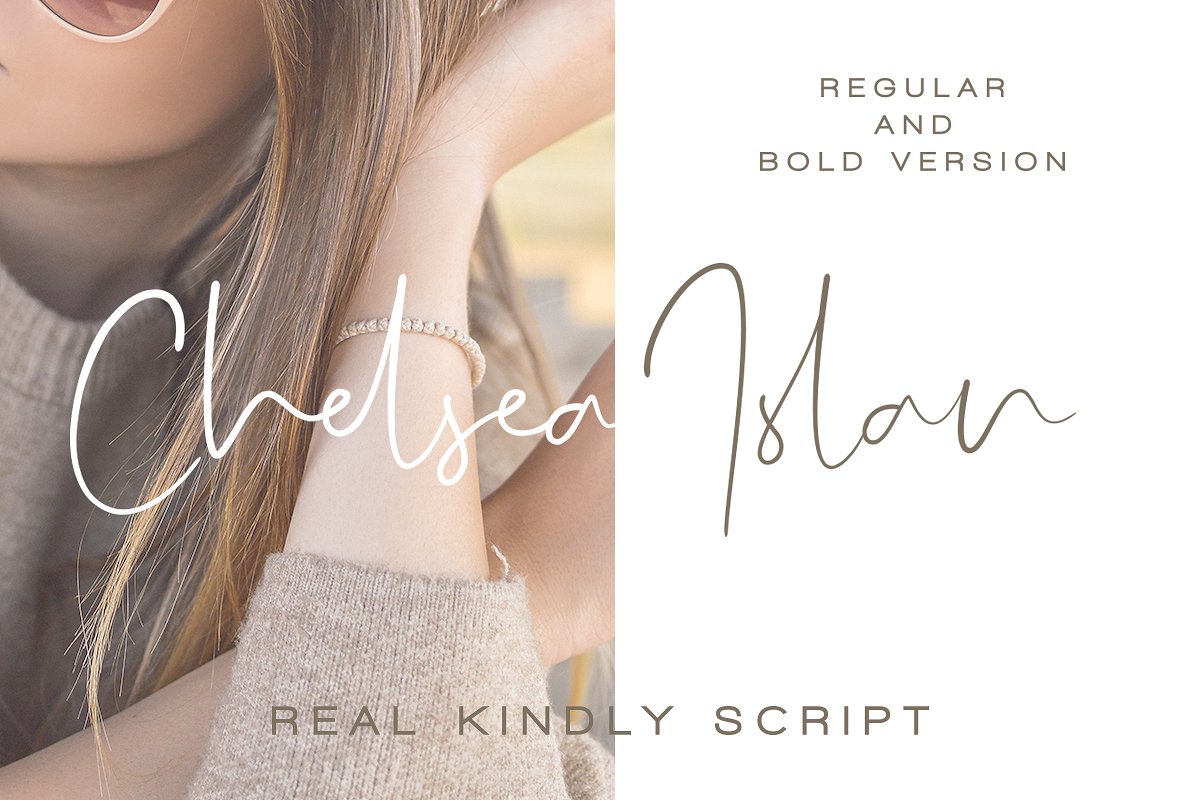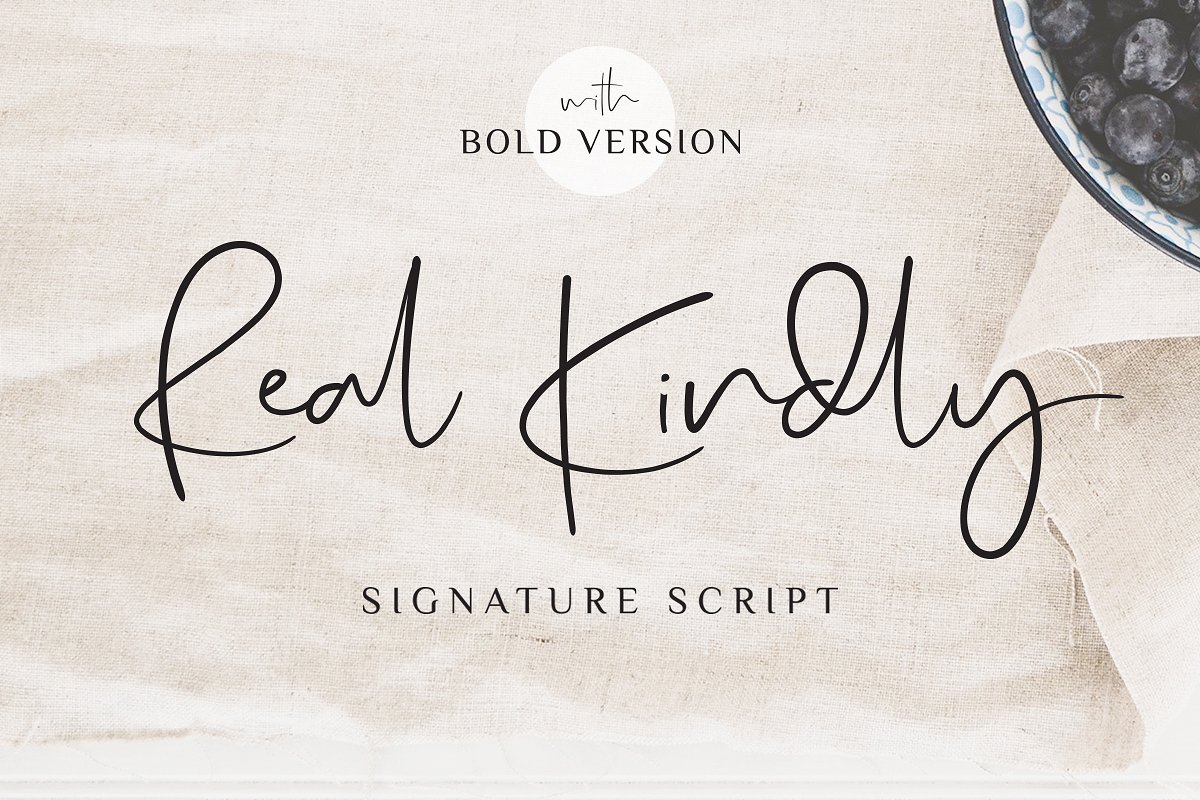
Real Kindly Signature Font
Hello world..!! This font is especially for you if you need to add tenderness to your project. Introducing Real Kindly Font! Real Kindly is a handwritten typeface coming with Regular and Bold versions. Its casual look makes it the perfect fit for signature logos, printed quotes, wedding invitation cards, social media headers, product packaging and a lot more!